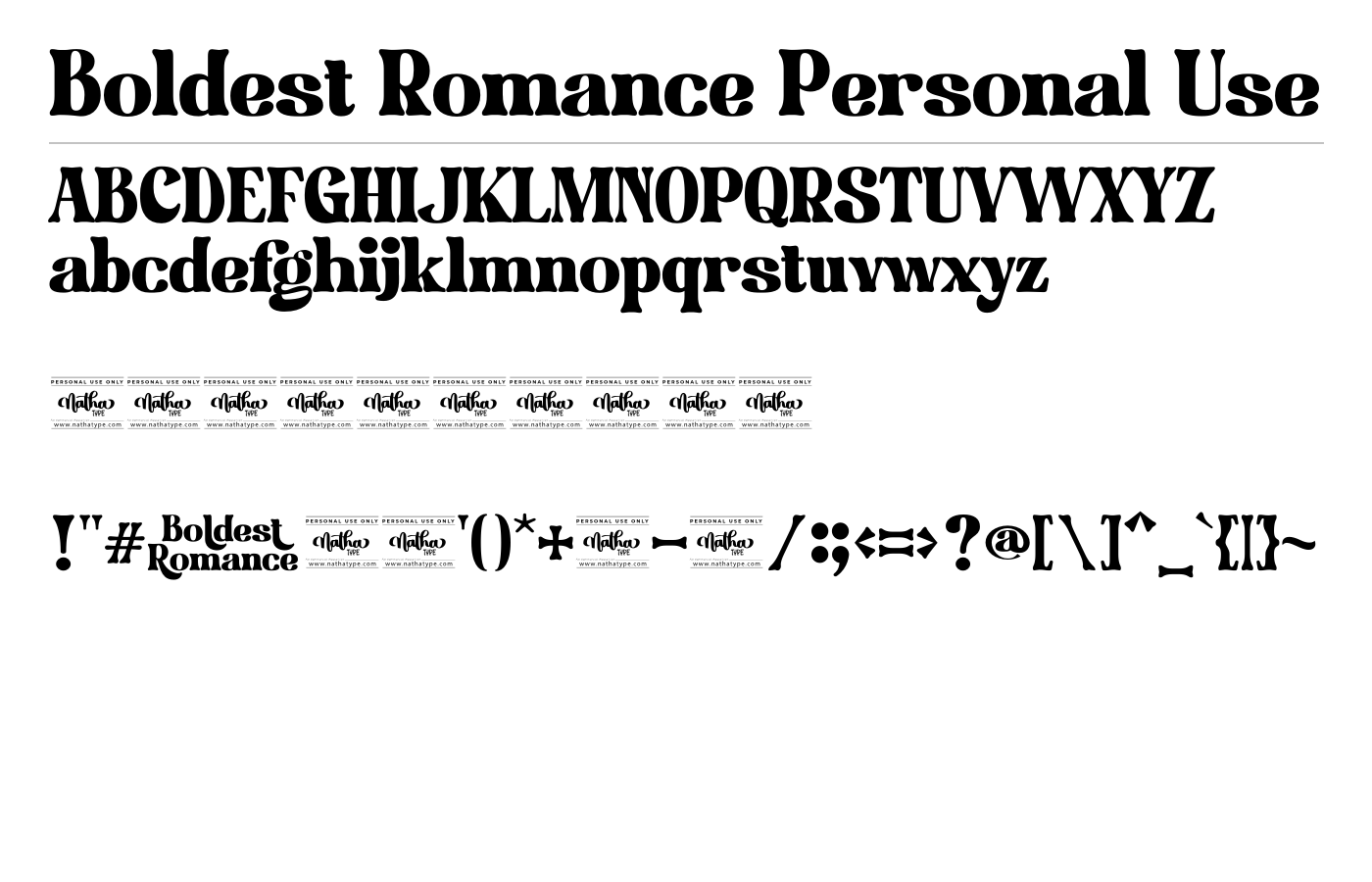
Boldest Romance Personal Use is a bold serif font with a vintage flair, showcasing thick and slightly condensed letterforms with high contrast between thick and thin strokes. Its unique bracketed serifs and playful letter shapes give it a warm, charming personality, making it ideal for creative branding, posters, and editorial headlines where a bold and nostalgic statement is desired. This font works well in settings that seek to blend elegance with a touch of retro character.
Boldest Romance Personal Use Font
About Boldest Romance Personal Use Font